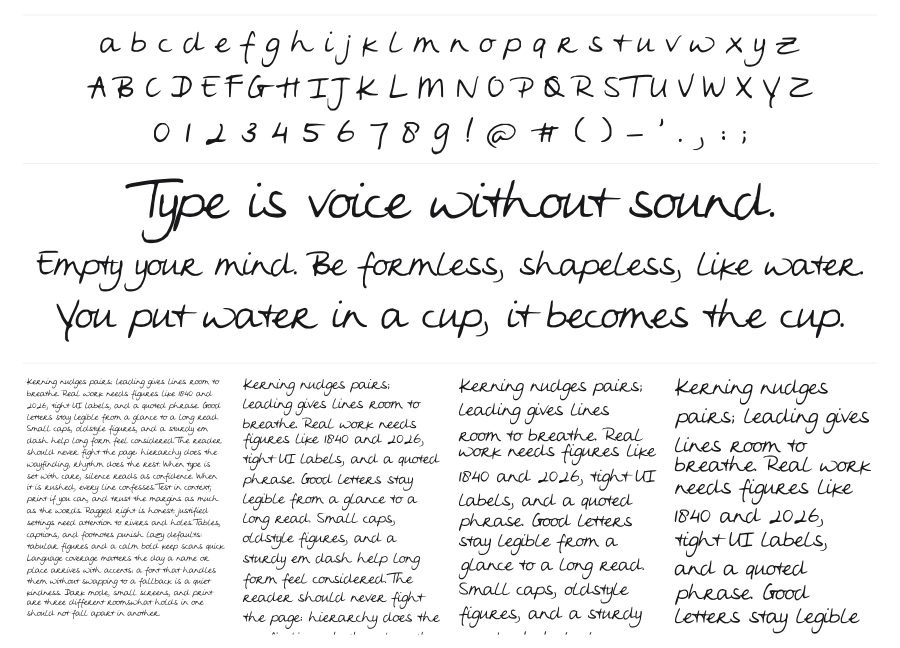
Oei
Oei is a casual handwritten face from Hanoded that reads like quick notes jotted with a ballpoint pen. The letterforms have a natural, slightly uneven rhythm that keeps things feeling genuinely personal rather than digitally manufactured. A solid choice for informal branding, greeting cards, or body text where you want an approachable, human touch.